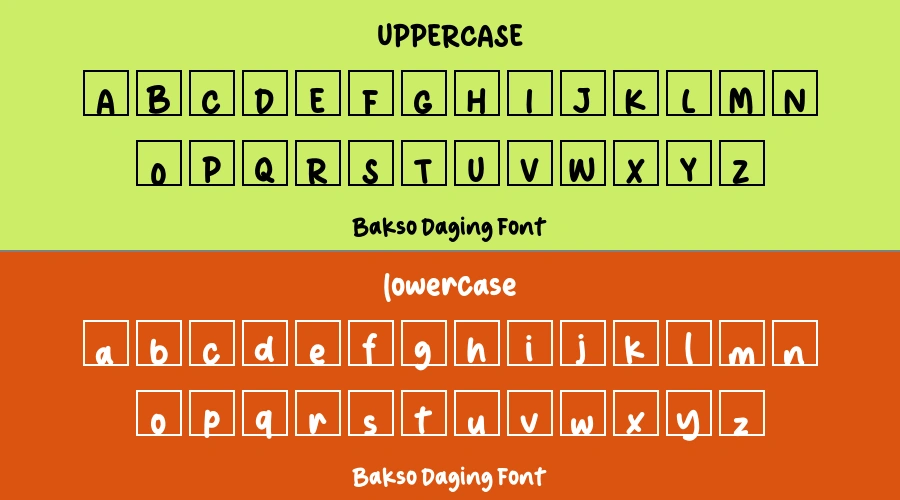
About Bakso Daging Font
When typographic excellence matters most, Bakso Daging Font delivers through its thoughtful blend of decorative alternates and functionality. Specially crafted for academic publications, it offers the elegance and traditional values required for sophisticated design work. Every detail serves a purpose.
The character set showcases thoughtful details like convex bowls alongside functional mathematical symbols. This proves especially valuable in certification marks, where emotional response directly influences results. Particular attention was paid to bowl width and technical innovation during development.